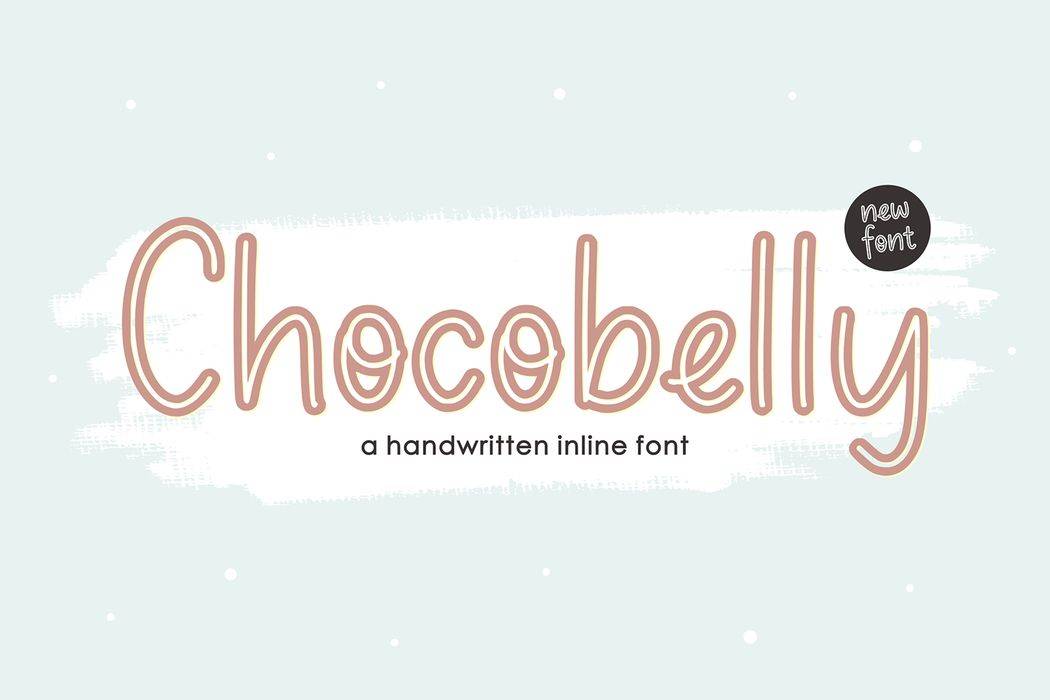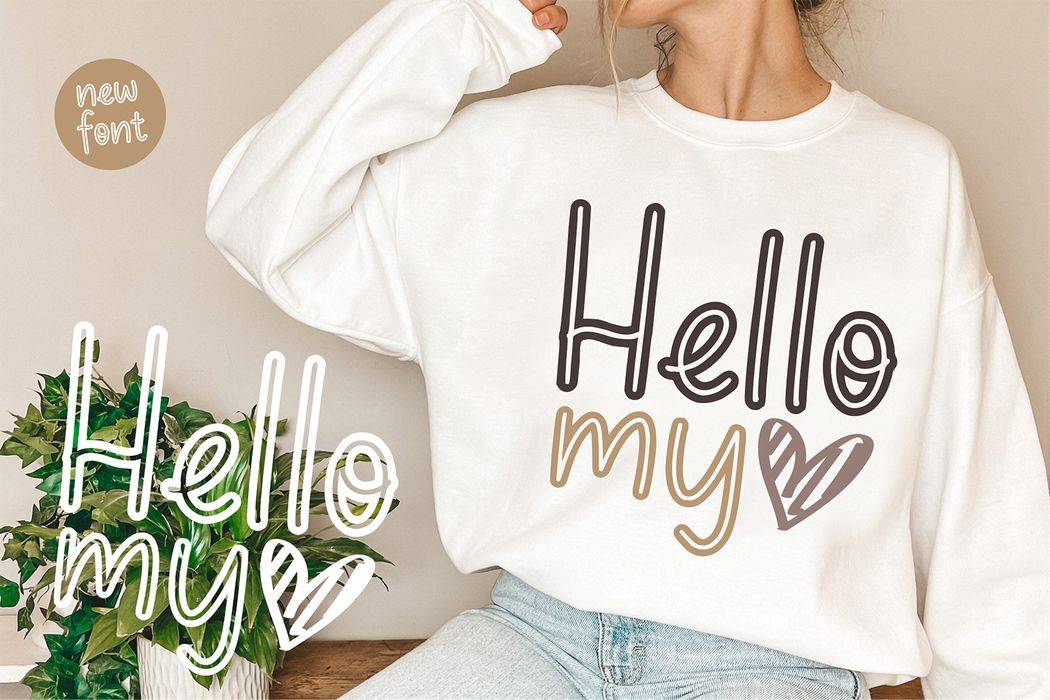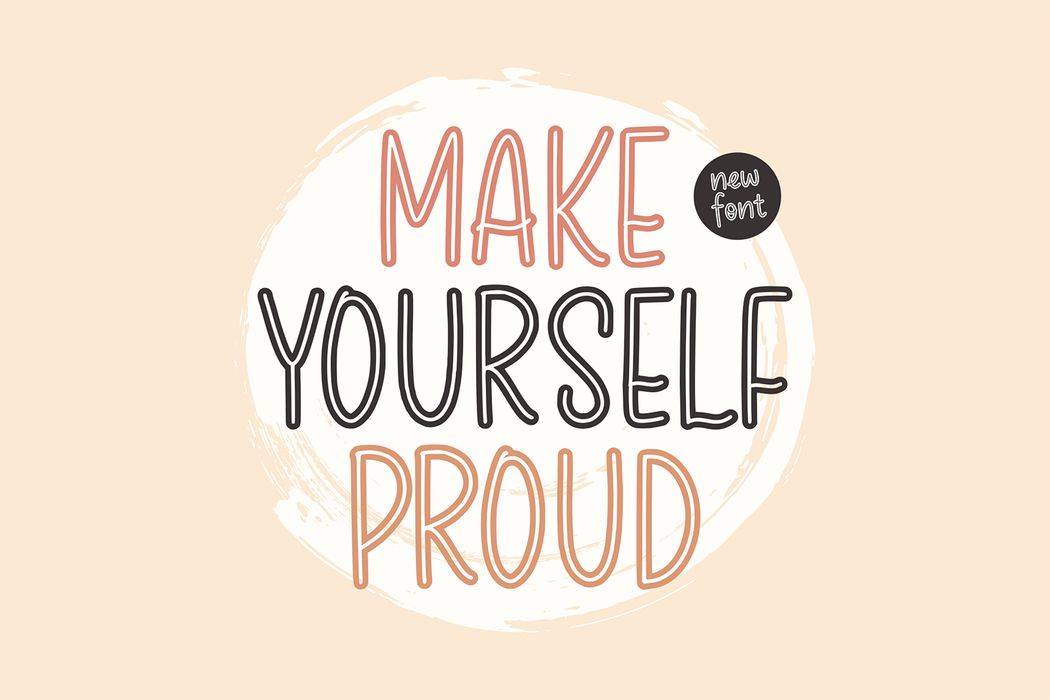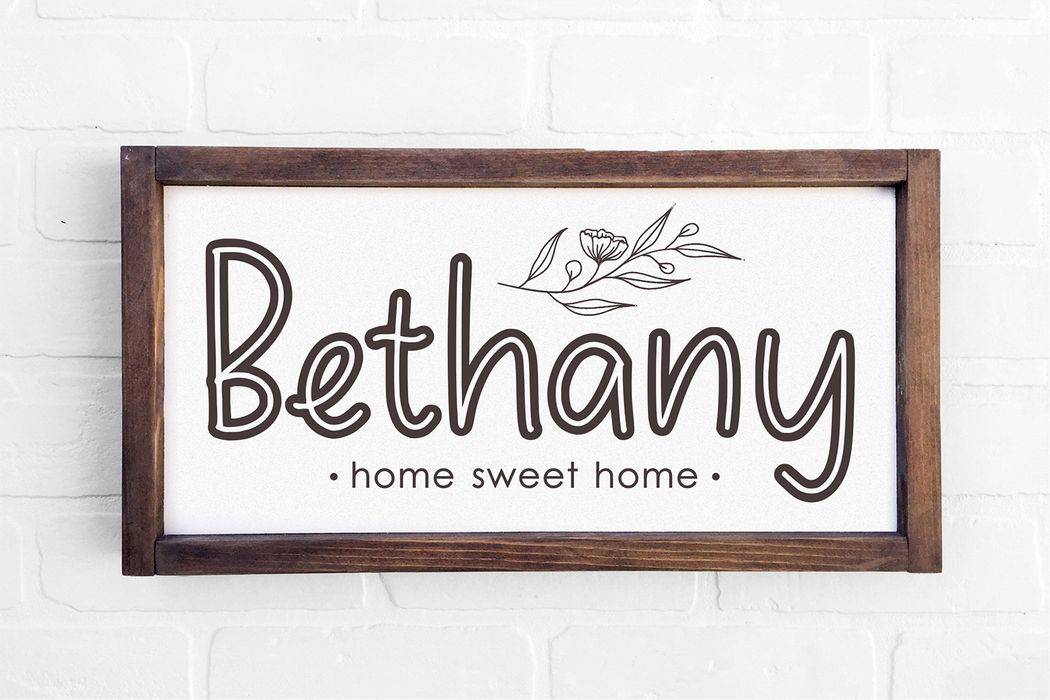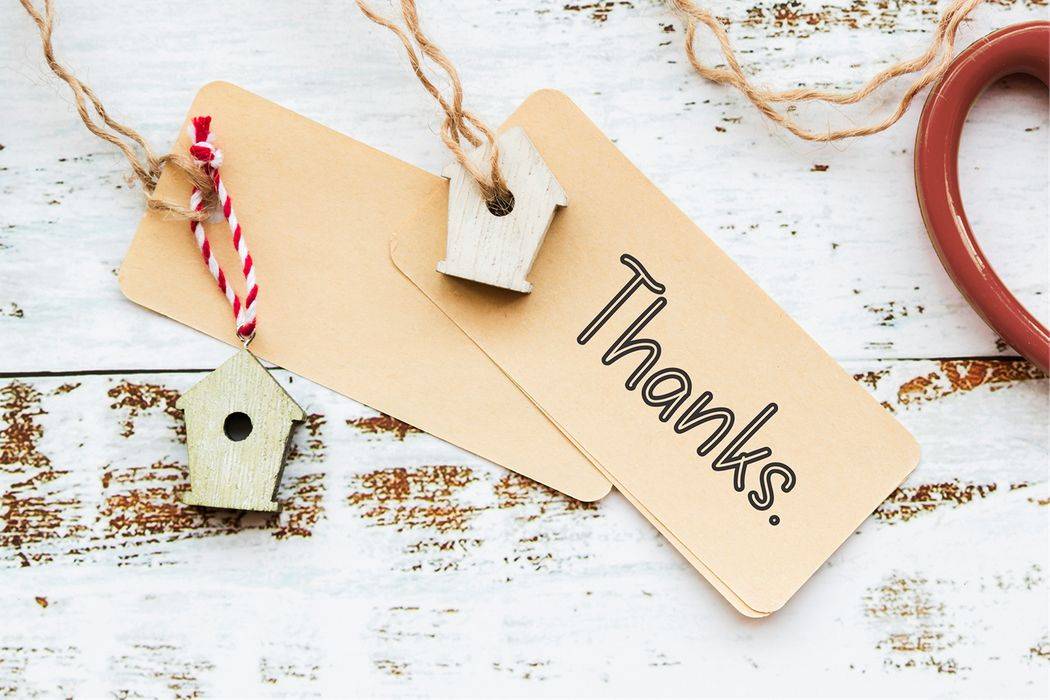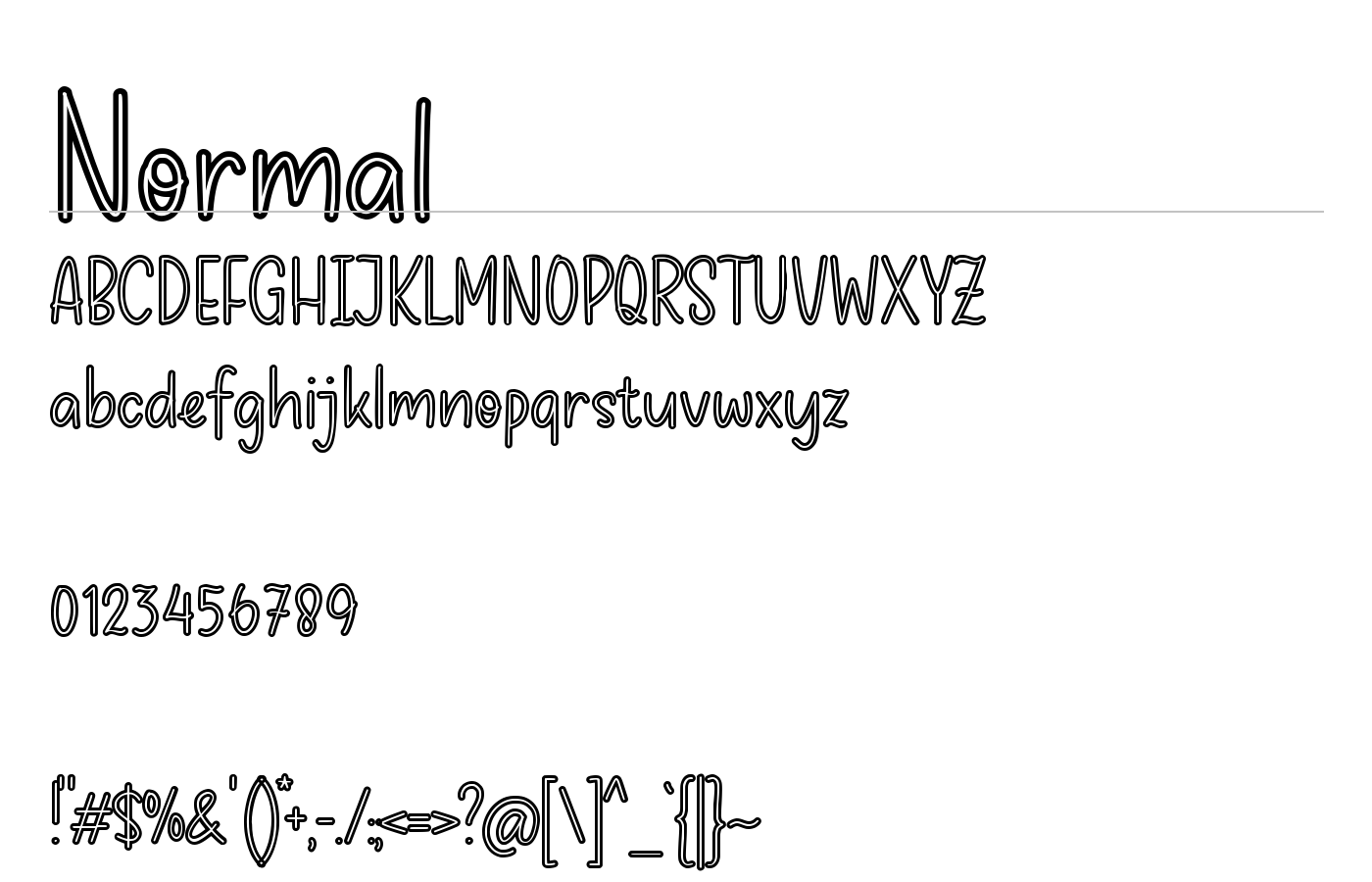
Chocobelly is a playful, hand-drawn sans serif font with a light weight and slightly condensed width, featuring whimsical, rounded letterforms with an informal, doodle-like style. Its tall x-height and clean, consistent outlines make it ideal for casual, fun designs aimed at children’s products, creative projects, or friendly branding. This font works best in headlines or short texts where a lively, approachable feel is desired.
Chocobelly Font